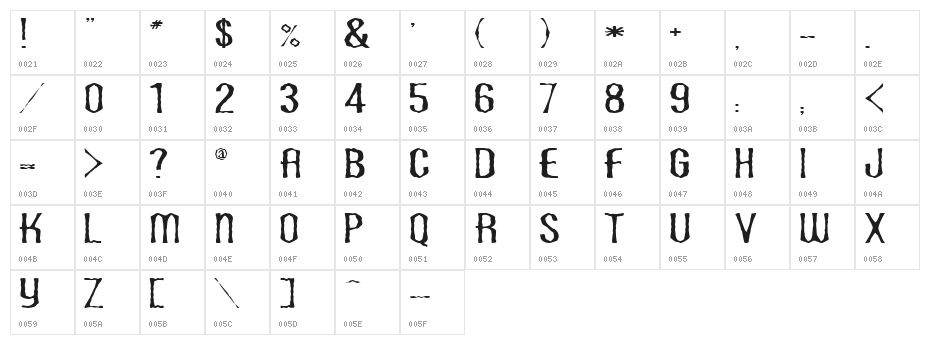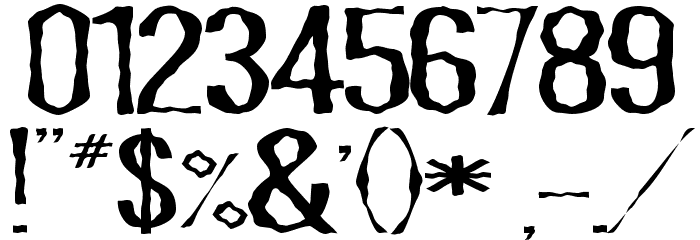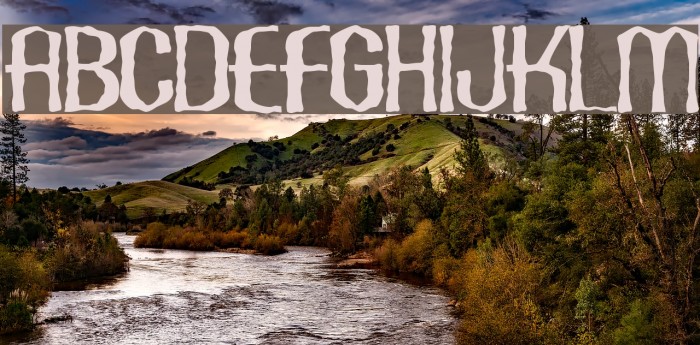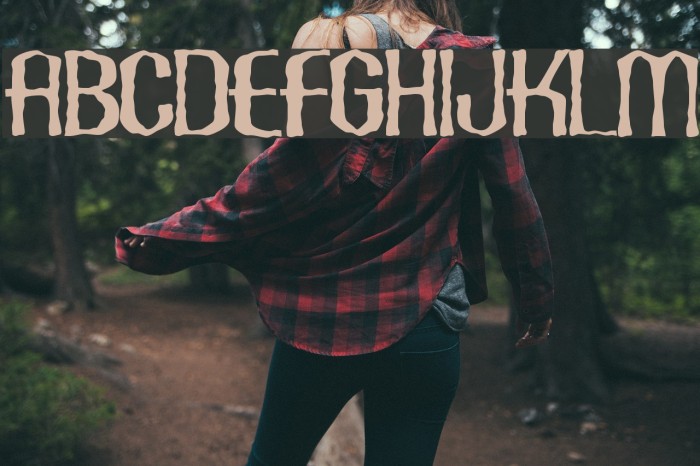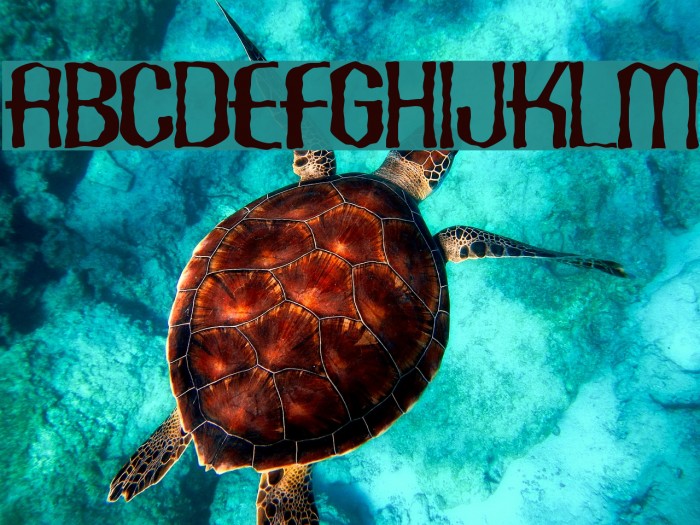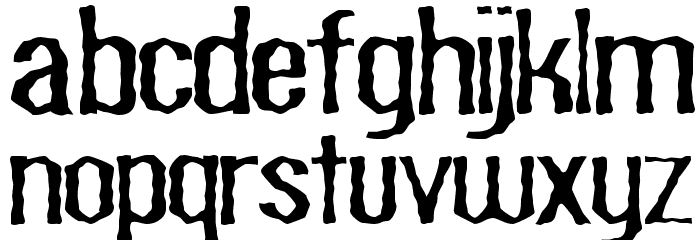
Scaberous Font
Scaberous Description
This font exhibits a rugged and textured appearance, reminiscent of hand-drawn or distressed lettering. The characters are uneven and irregular, giving a raw and organic feel. The strokes are thick and vary in width, contributing to a bold and impactful look. The uppercase and lowercase letters maintain a consistent style, with jagged edges and a slightly chaotic structure. Numbers and special characters follow the same aesthetic, ensuring uniformity across all glyphs. This font's unique style makes it stand out, perfect for projects that require a touch of edginess and creativity.
| Proposed Projects | Ideal for album covers, posters, branding for edgy or alternative products, and artistic projects. |